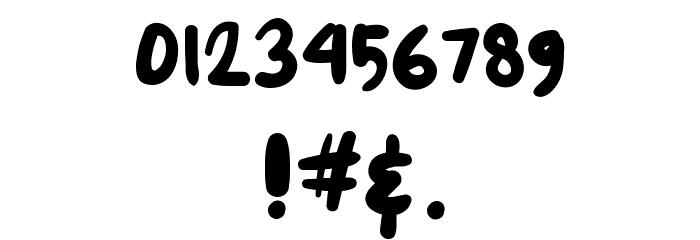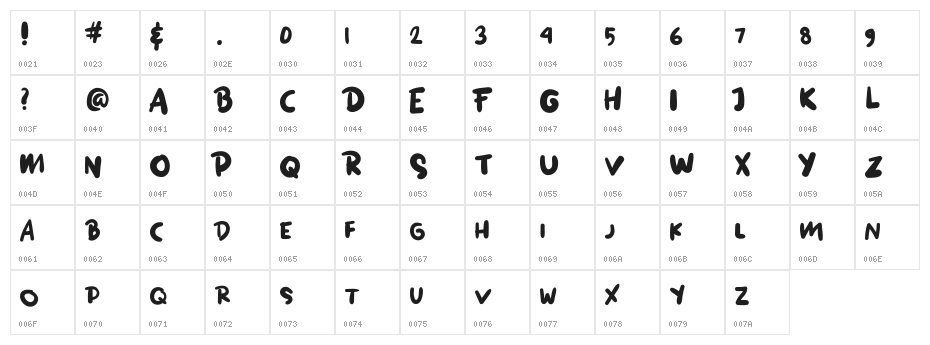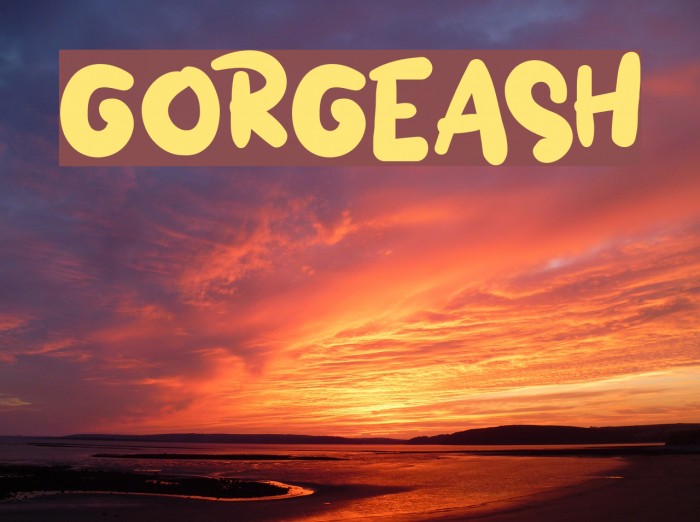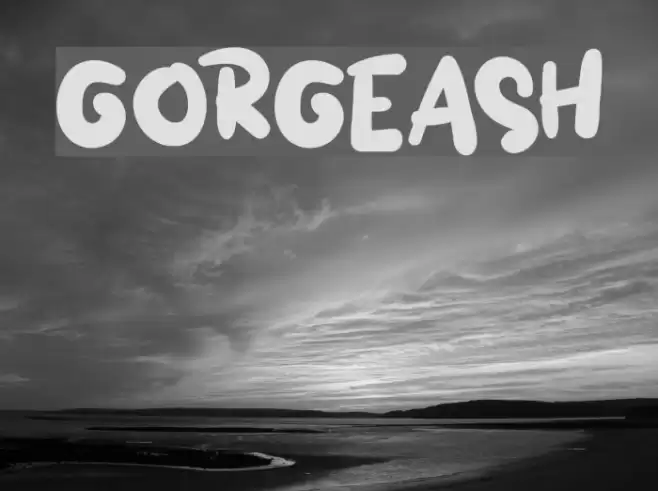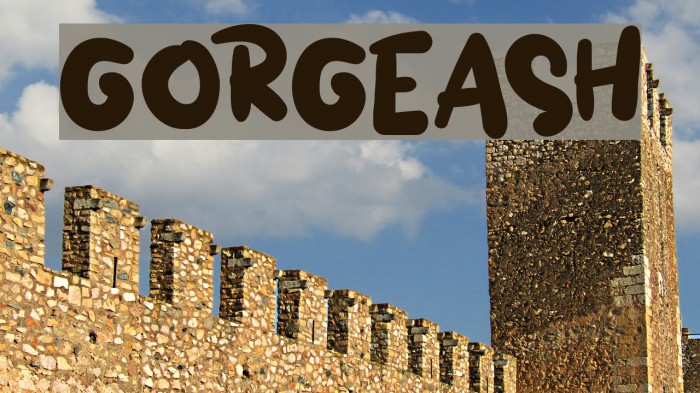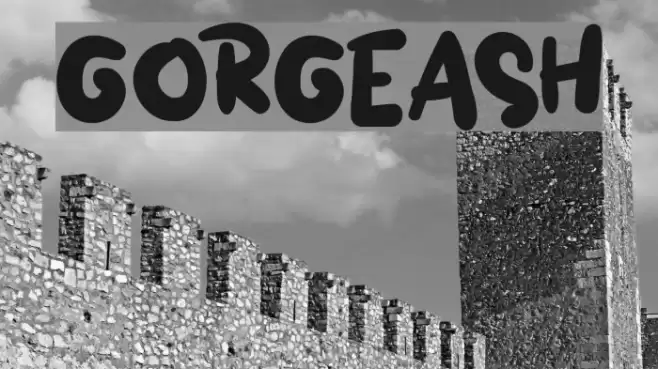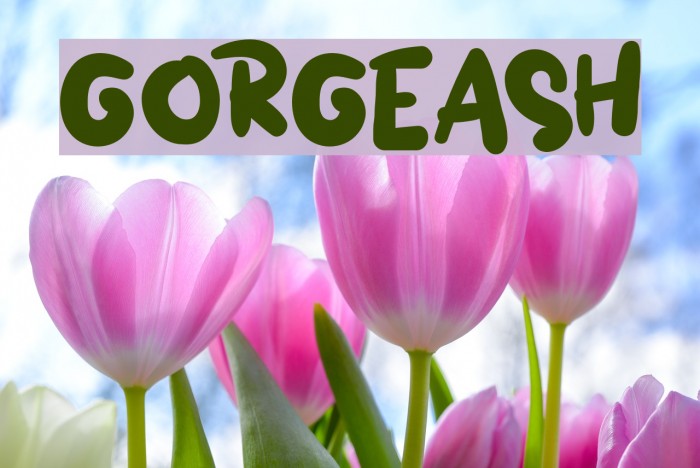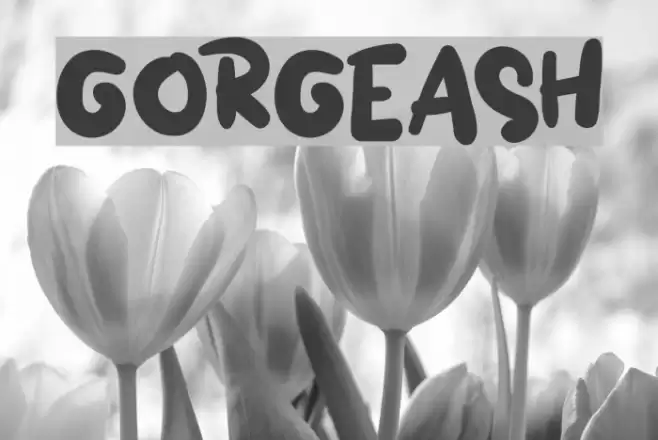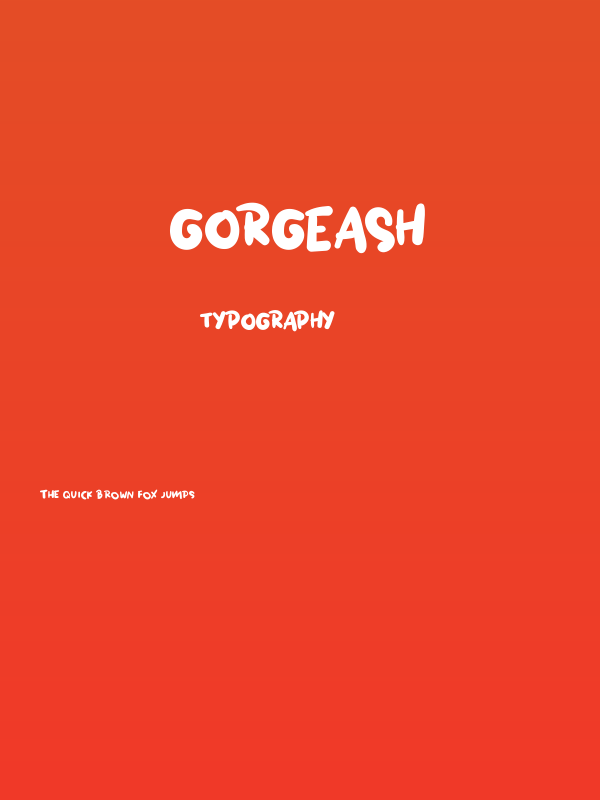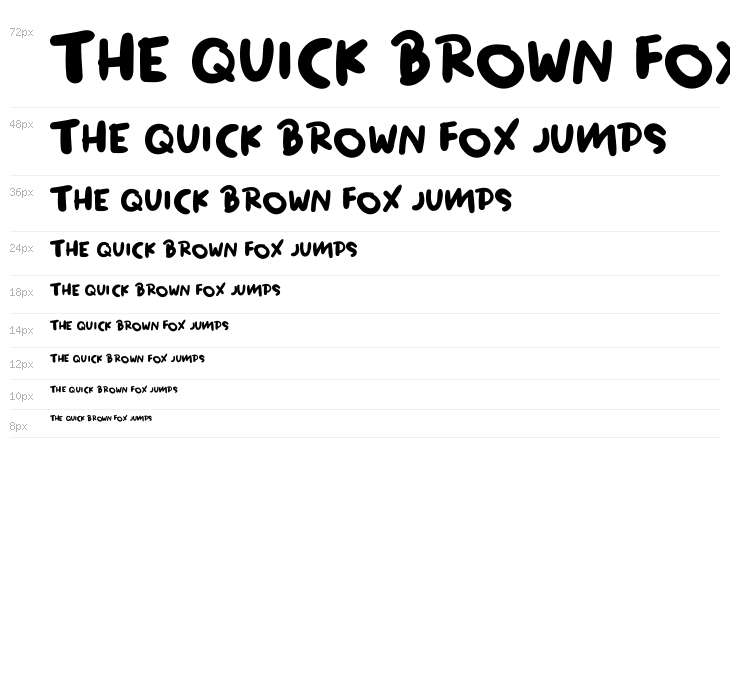
GORGEASH Font
GORGEASH Description
This font features a bold and playful style with rounded edges and a hand-drawn appearance. The letters are thick and slightly irregular, giving them a casual and friendly look. The uppercase and lowercase characters maintain a consistent style, with a slight tilt that adds to the dynamic feel. Numbers and special characters are designed to match the overall aesthetic, ensuring a cohesive look across all text elements. The font's boldness makes it highly legible, even at smaller sizes, while its unique style adds a touch of personality to any design.
| Proposed Projects | Ideal for children's books, playful branding, posters, and social media graphics. |